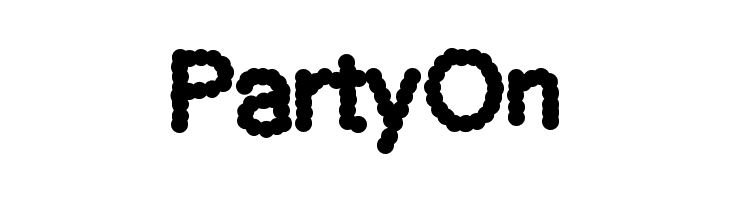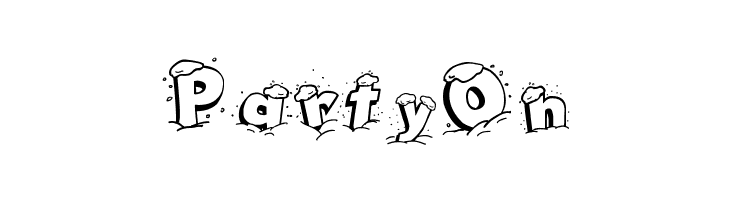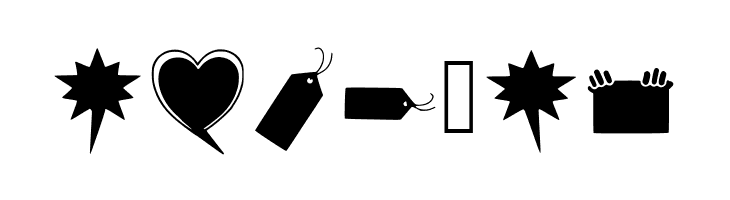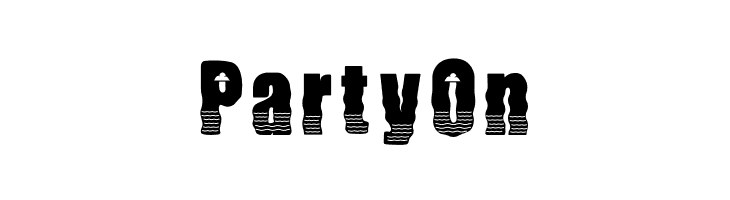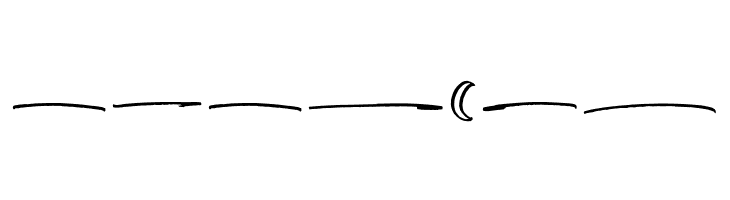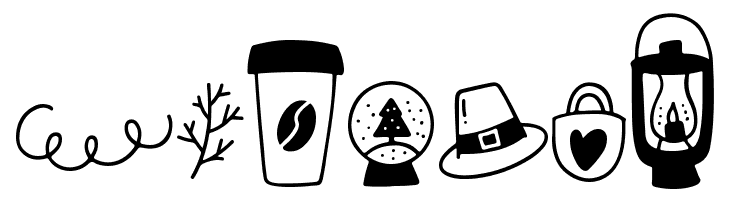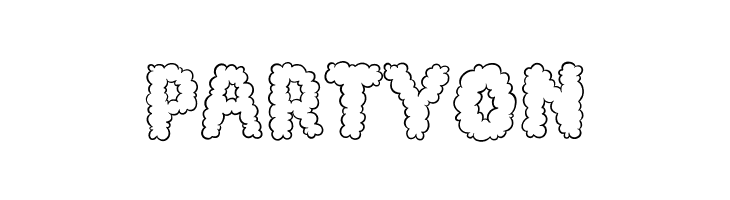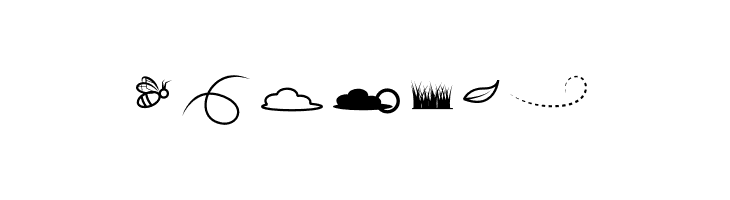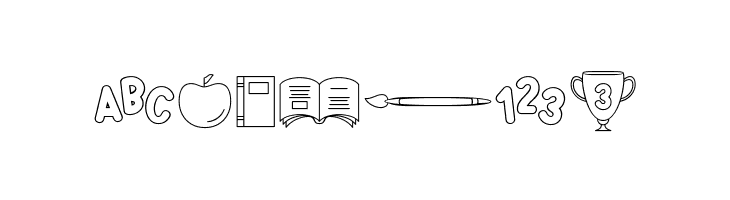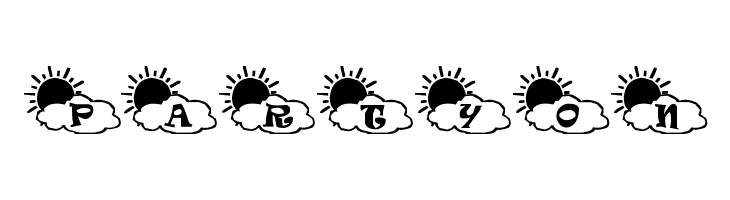
A playful, decorative font with characters in clouds and a sun motif.
A playful, cloud-like font with rounded, bubbly characters.
A playful, cartoonish font with bold outlines and whimsical, fluffy accents.
Bold, playful icons of speech bubbles and comic elements.
A playful, beach-themed decorative font with bold, textured characters.
A whimsical, decorative font with swash-like, flowing lines and playful embellishments.
A whimsical collection of autumn-themed dingbats with hand-drawn illustrations.
A playful, cloud-themed decorative font with a whimsical style.
A whimsical collection of nature-inspired dingbats with butterflies, flowers, and animals.
A playful set of educational dingbats featuring school-related icons and symbols.